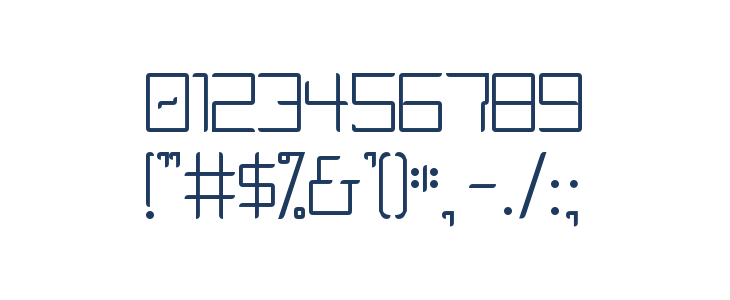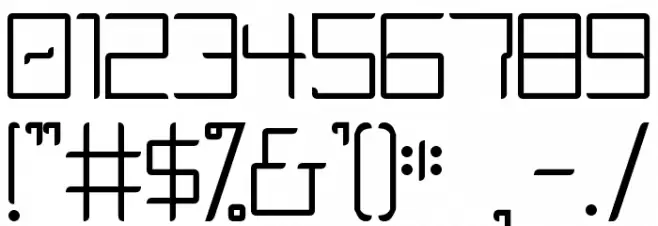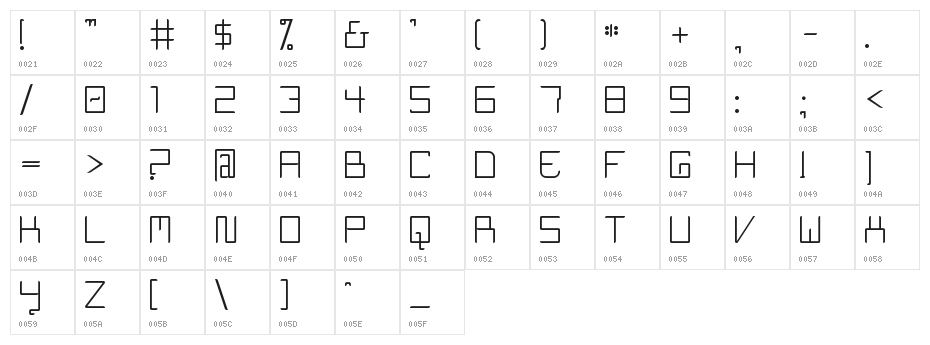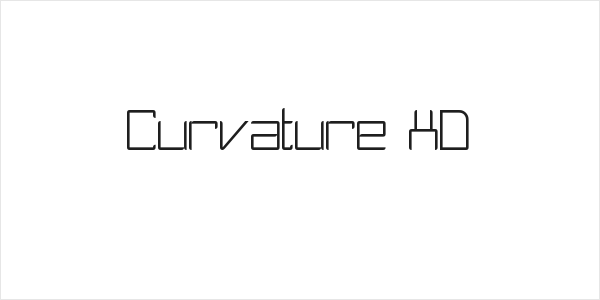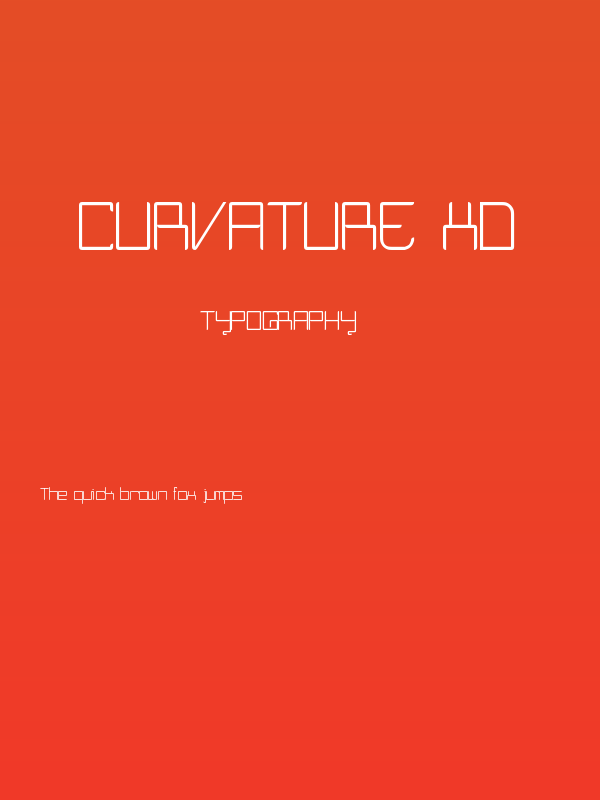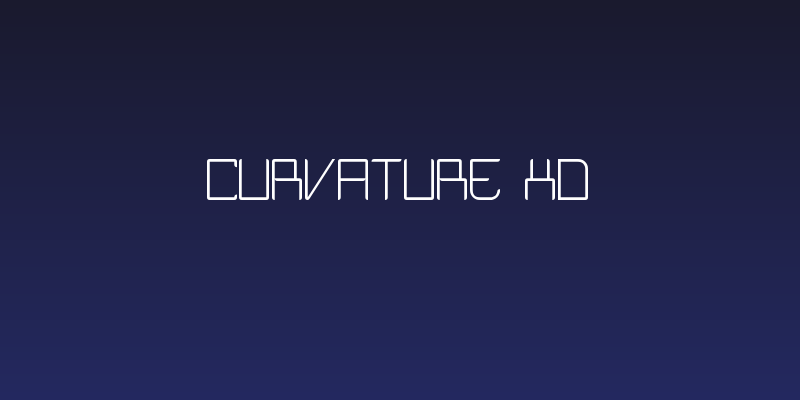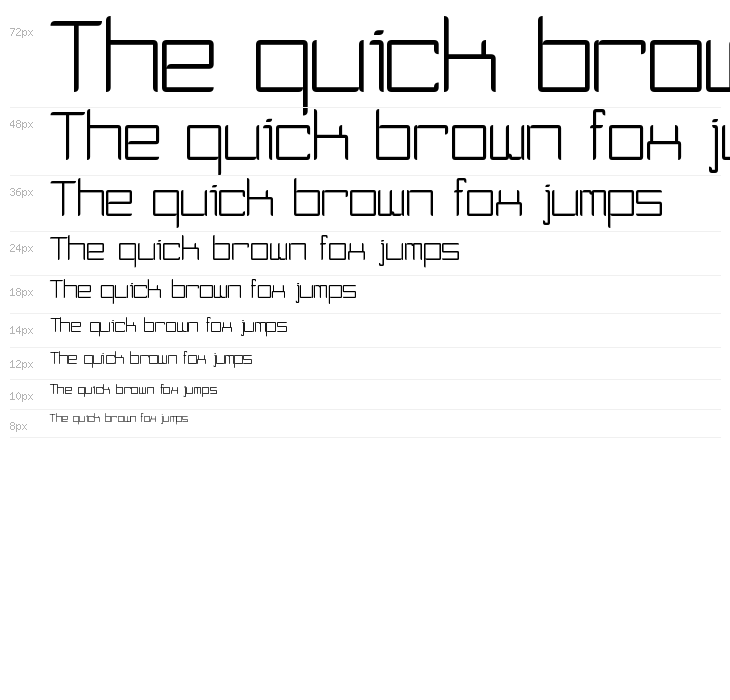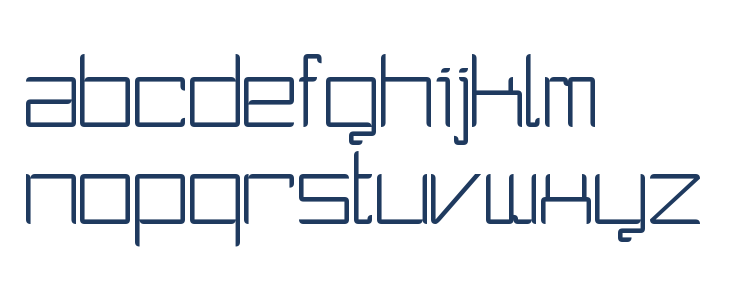
Curvature XD Font
Curvature XD Description
This font features a modern, geometric design with a distinctively futuristic feel. The characters are constructed with clean, straight lines and sharp angles, giving it a technical and digital appearance. The uppercase and lowercase letters maintain a consistent height, contributing to a uniform look. The numerals and special characters follow the same design principles, ensuring cohesion across all glyphs. The font's minimalistic style is enhanced by its monolinear strokes, which provide a sleek and streamlined aesthetic. This design is ideal for projects that require a contemporary and innovative touch.